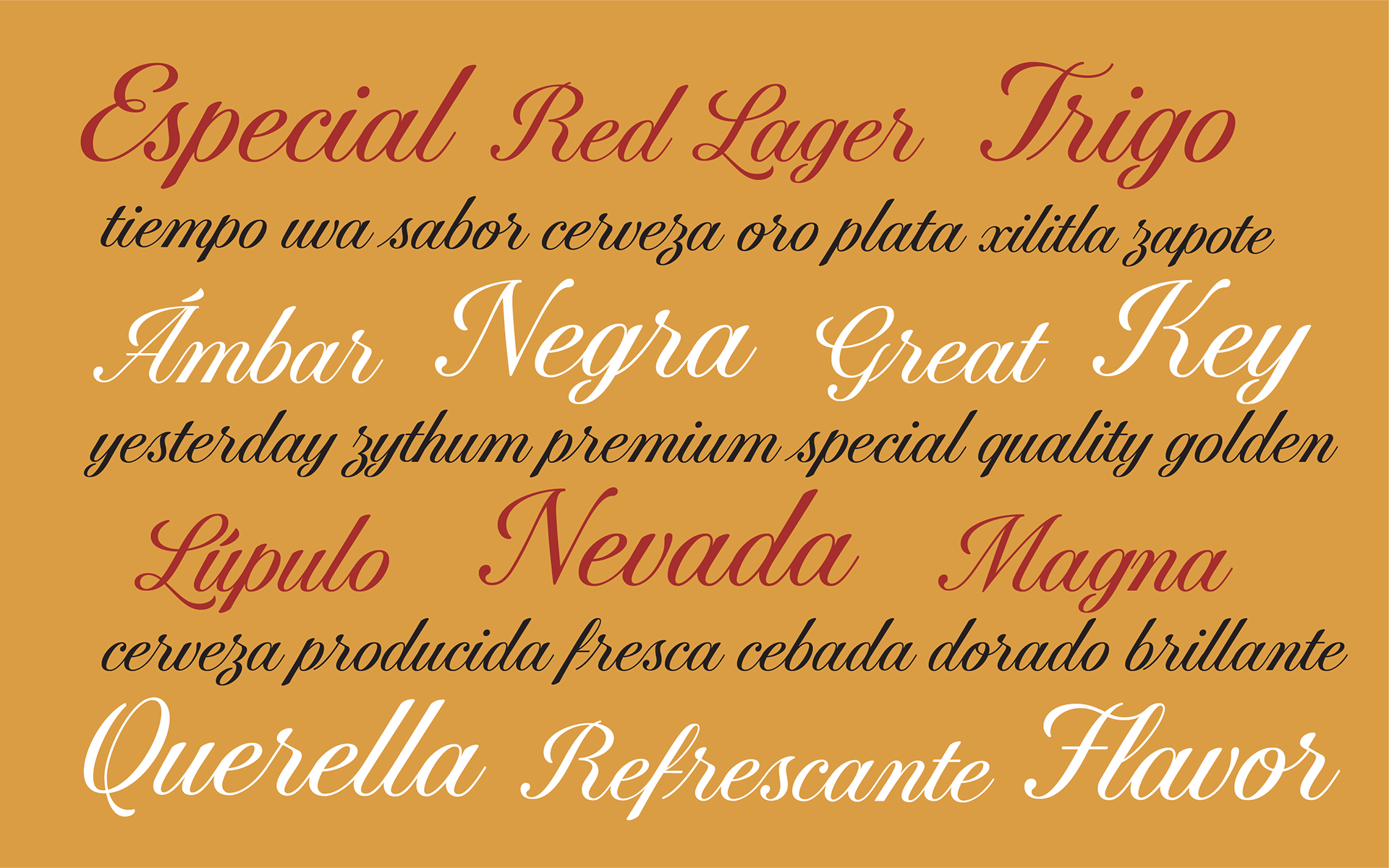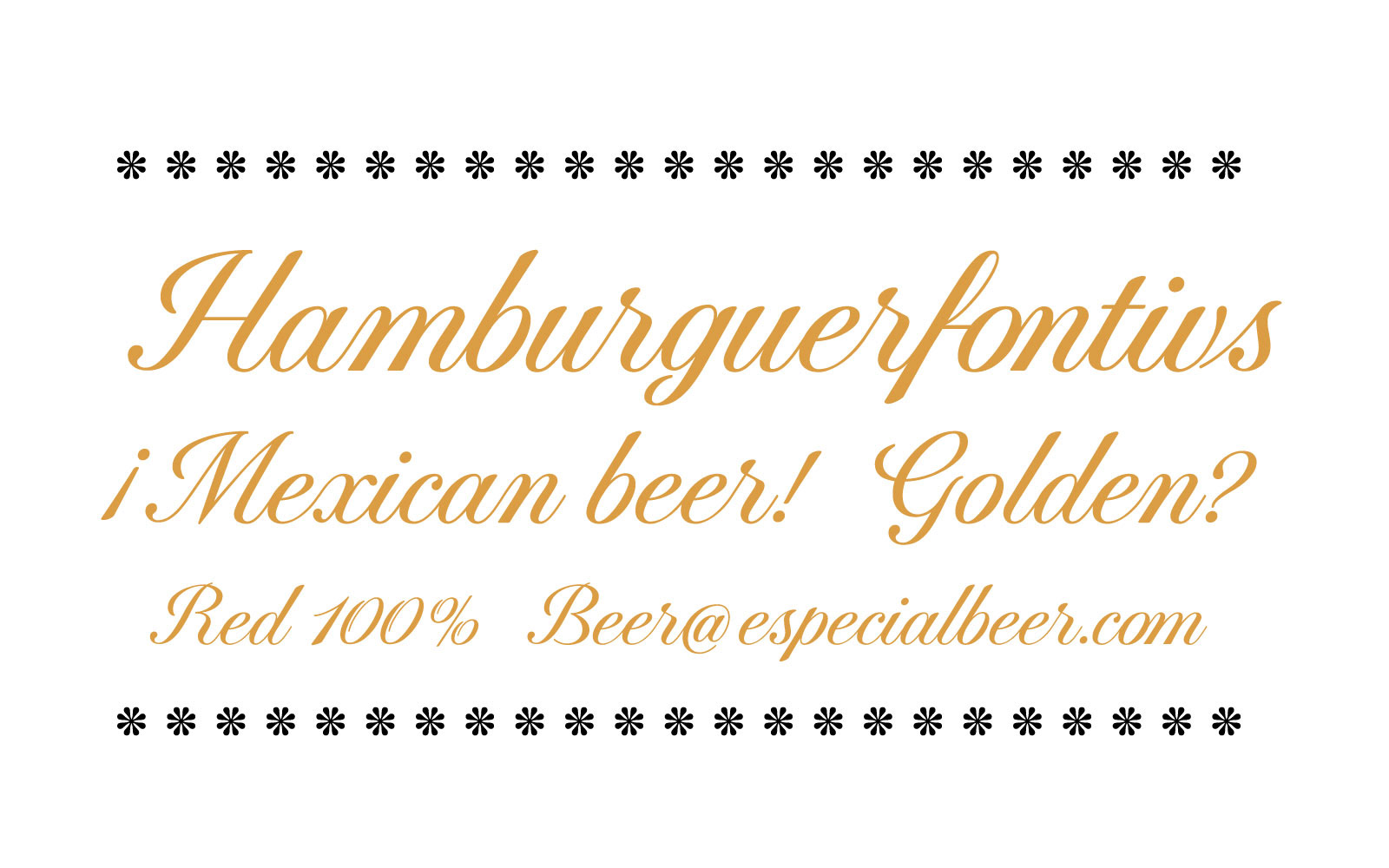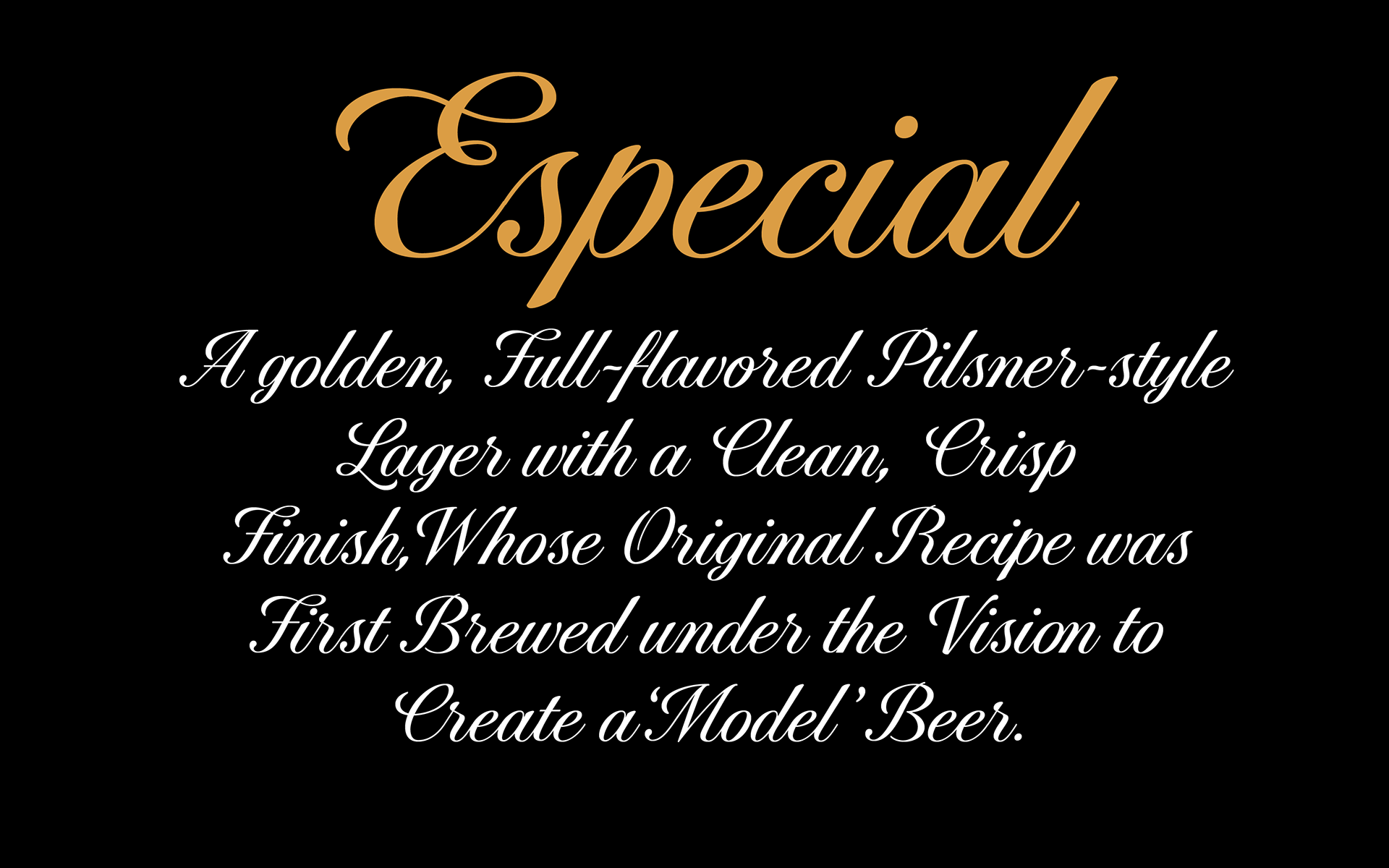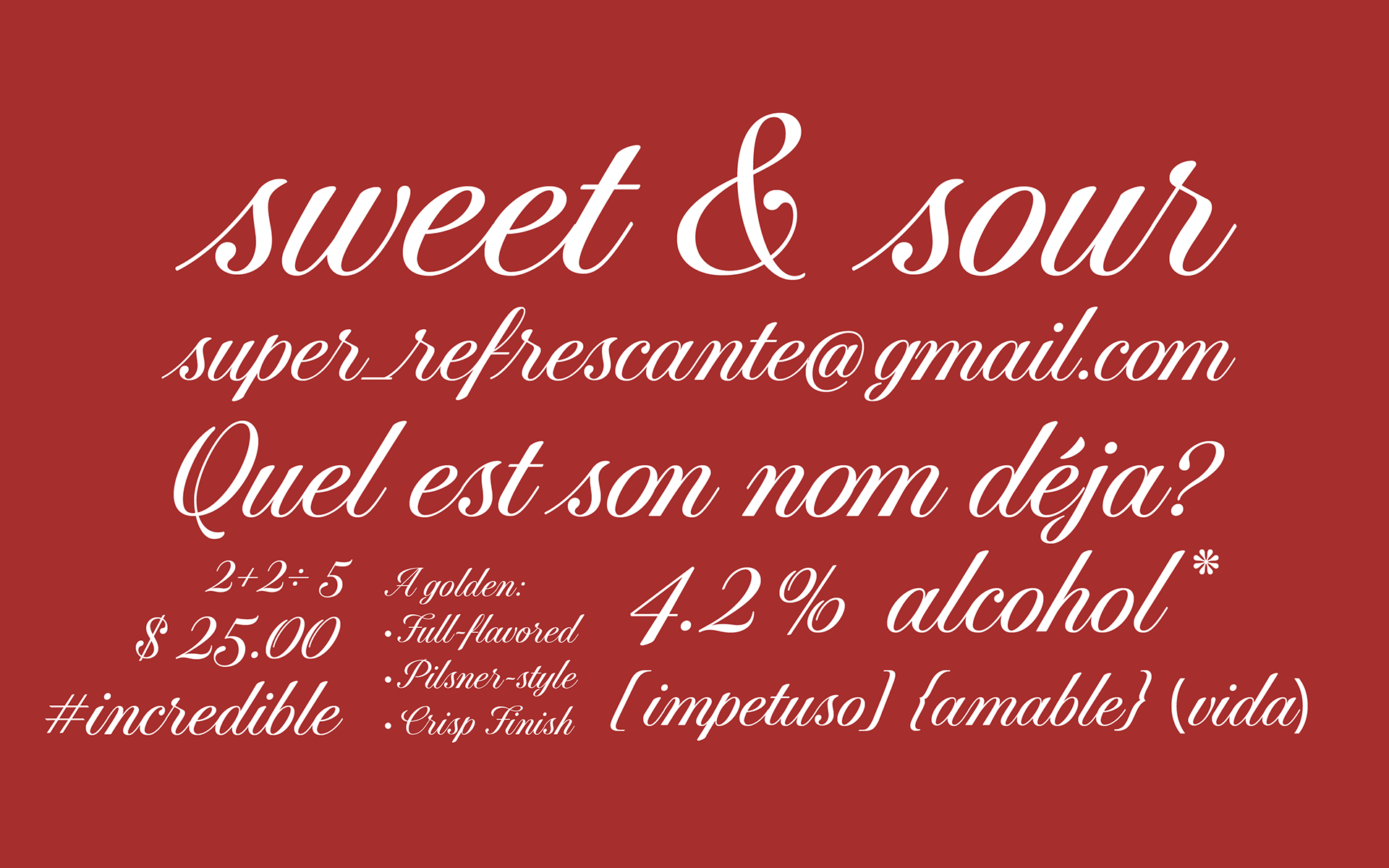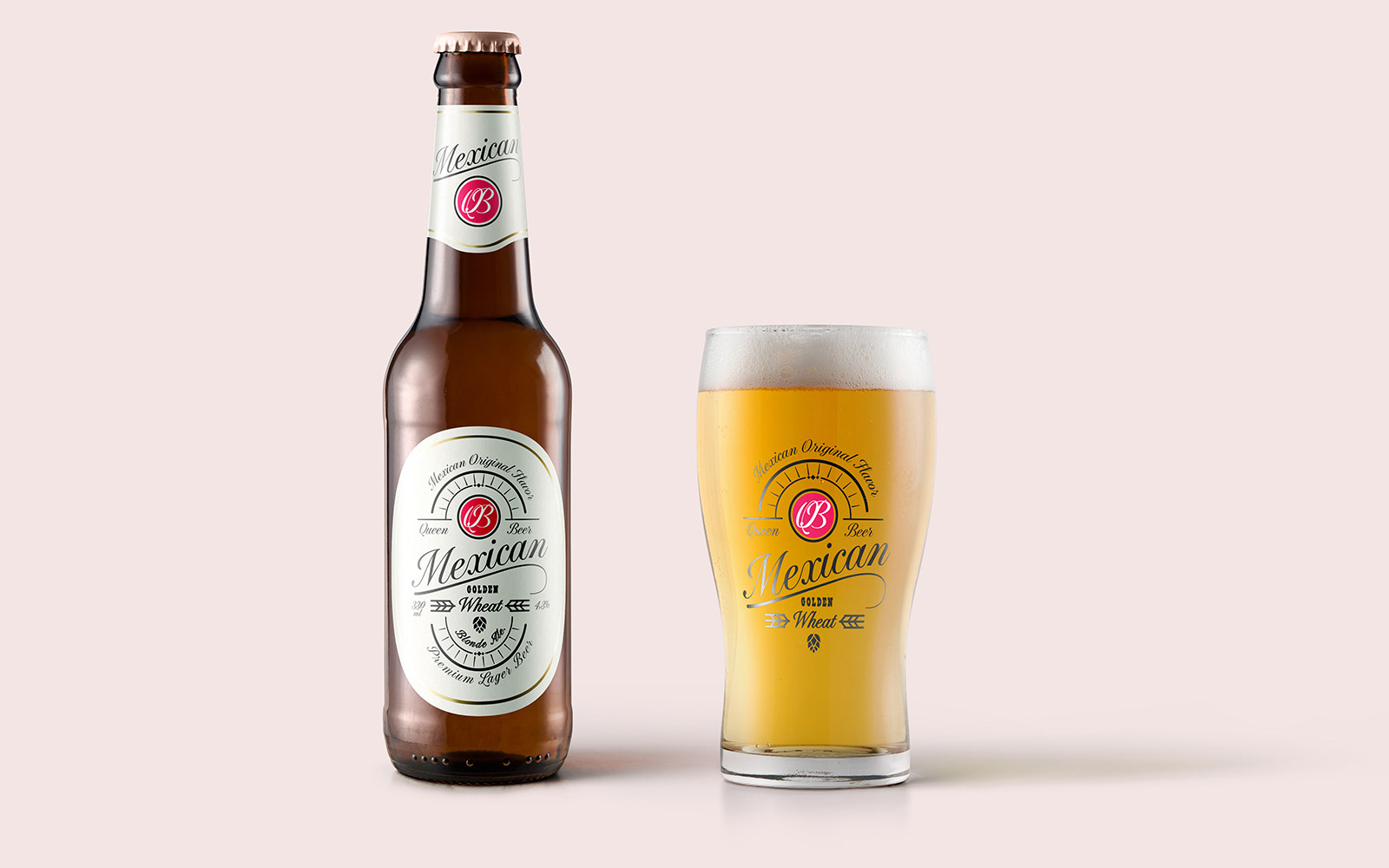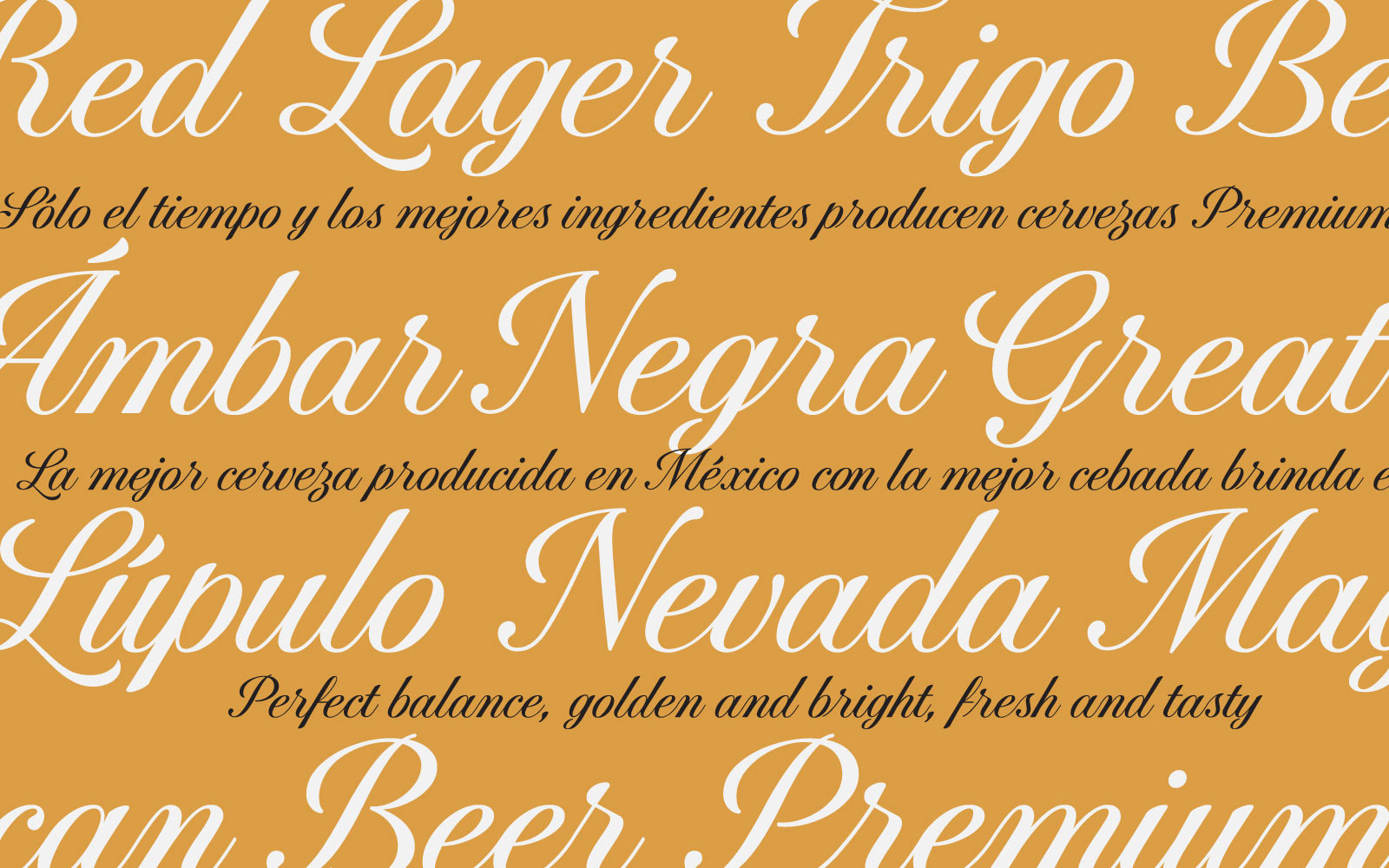
Mónica Munguía, Type Director
While working at Tipastype in 2018, I designed and developed Especial, a custom typeface commissioned for the communication of a specific product within the portfolio of a Mexican national beer brand. Inspired by Copperplate calligraphy, the typeface expands the visual language of the brand's original logotype into a functional type system. It includes a basic Latin character set for Spanish and a collection of alternate glyphs that introduce stylistic variation and decorative richness.